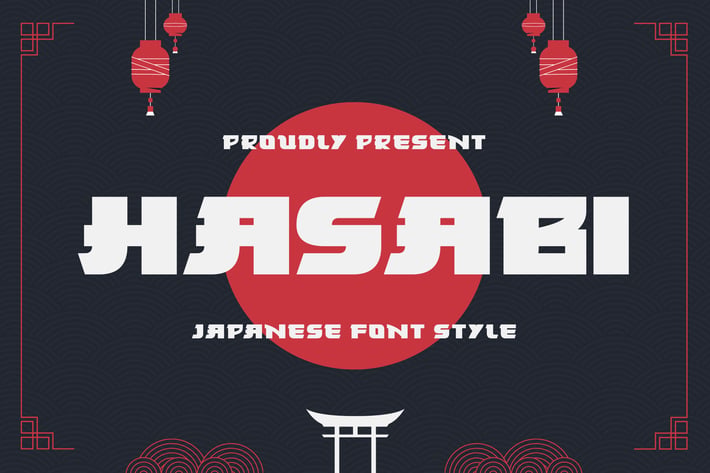
Hasabi - Japanese Font Style
Introducing "Hasabi" - a Japanese font style that embodies the elegance and sophistication of Japanese calligraphy, offering a captivating typographic solution for your designs.
With its graceful strokes and intricate details, "Hasabi" celebrates the beauty and richness of Japanese script. Whether you're designing branding materials, editorial layouts, event invitations, or digital artworks, this font adds a touch of cultural authenticity and timeless charm to your projects.
Embrace the artistic beauty of "Hasabi" as it effortlessly enhances your designs. With its versatile style and traditional flair, this font captures the essence of Japanese calligraphy, ensuring that your creations stand out with grace and allure.
Step into the world of Japanese typography with "Hasabi" and let your designs shine with its mesmerizing beauty and cultural resonance.